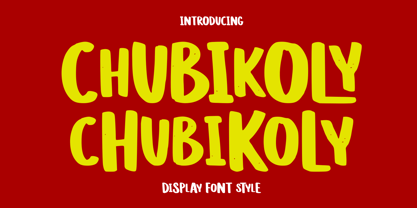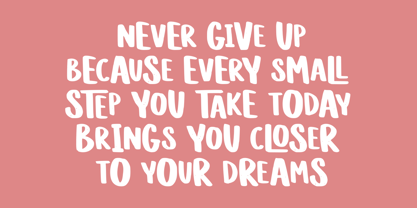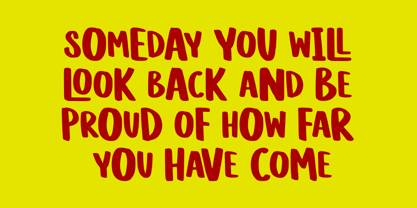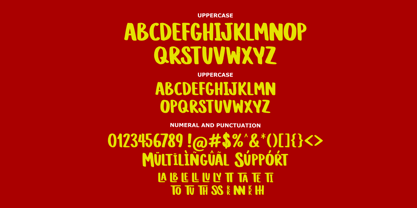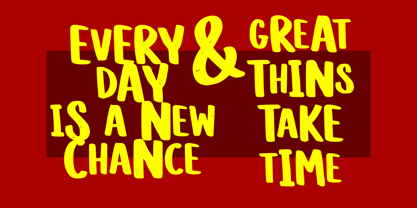
Chubikoly
Chubikoly is a playful and bold display font with chunky, rounded letterforms that bring a fun and energetic vibe to any design. Its thick strokes and slightly irregular shapes create a friendly, cartoon-like personality, making it perfect for kids’ projects, posters, branding, packaging, and eye-catching headlines. Chubikoly adds a cheerful and lively touch that instantly grabs attention and makes your design feel more expressive and joyful.